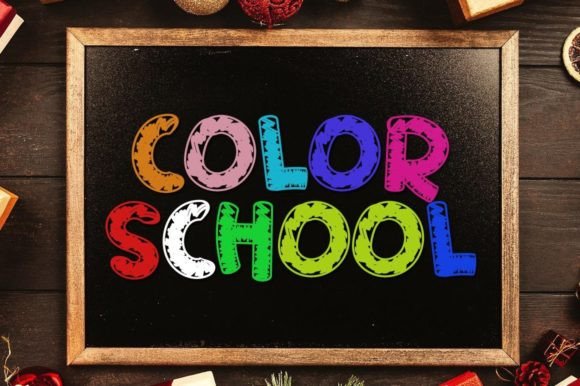
In a digital world teeming with monotony, unleash your creativity with Color School Font, the vibrant display font that breathes life into your designs. This playful and authentic font is a symphony of colors and curves, echoing the enthusiasm of a child's laughter.
Picture this: a school project that bursts with personality, a children's activity that ignites imagination, a website that radiates joy and warmth. Color School Font is the secret ingredient that transforms the ordinary into the extraordinary.
Its chunky letters dance across the screen, captivating attention and leaving a trail of smiles in their wake. Each character is a stroke of genius, meticulously crafted to embody the spirit of playfulness and authenticity.
With Color School Font, your designs will transcend the boundaries of the mundane and enter a realm of pure delight. It's the perfect choice for projects that demand a touch of whimsy, a splash of color, and an explosion of creativity.
Step into the world of Color School Font, where imagination reigns supreme and designs come alive with vibrant hues. Embrace the magic of this font and watch as your projects blossom into masterpieces that capture hearts and leave an indelible mark.